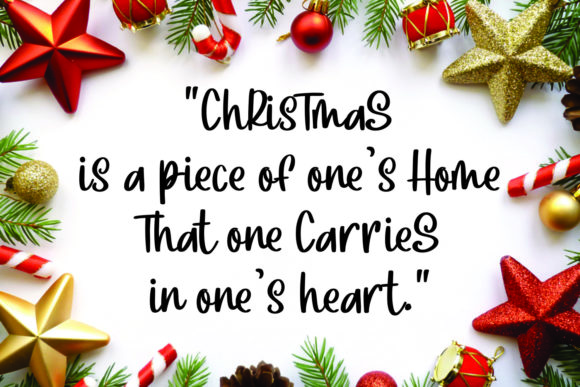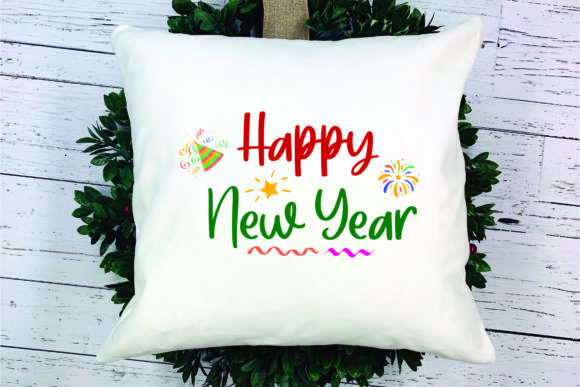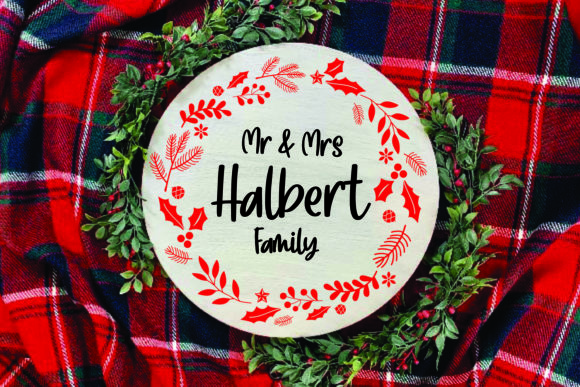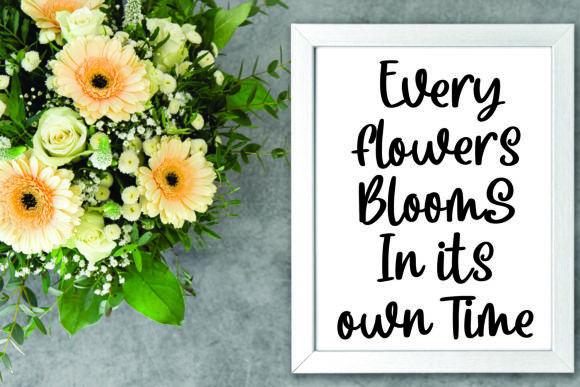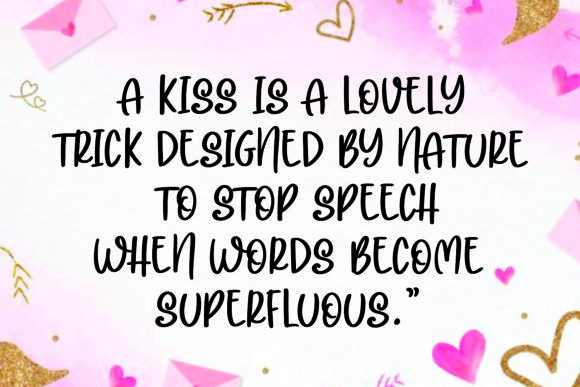
Christmas Breakfast Font
Christmas Breakfast is a lovely and delicate script font that exudes elegance and class. This font was particularly crafted for those who need a beautiful and refreshing look to their designs.